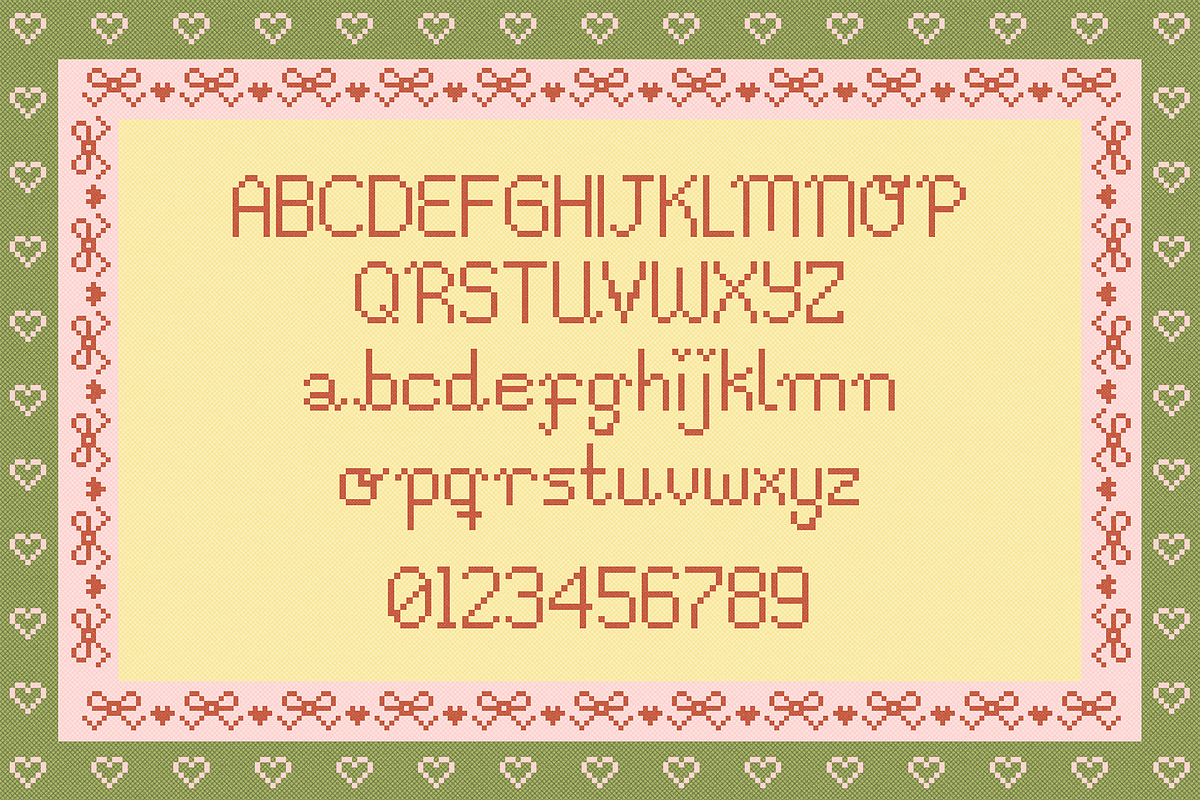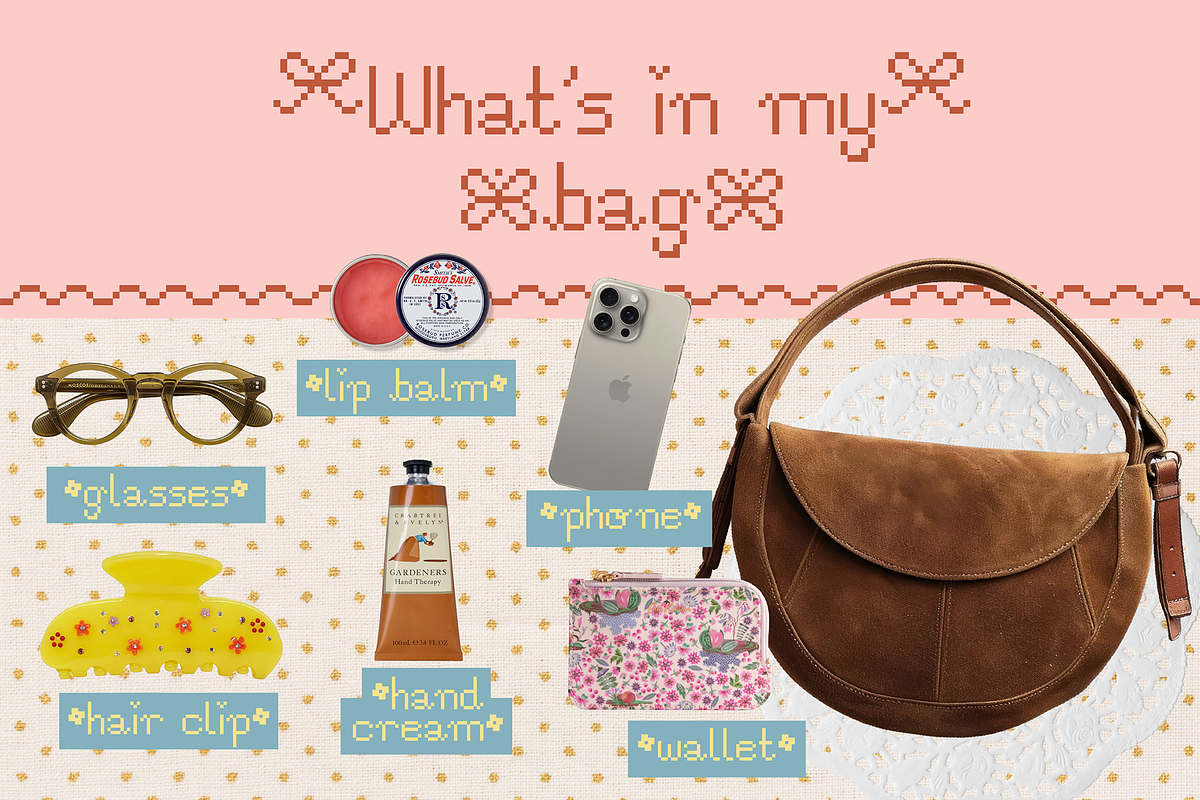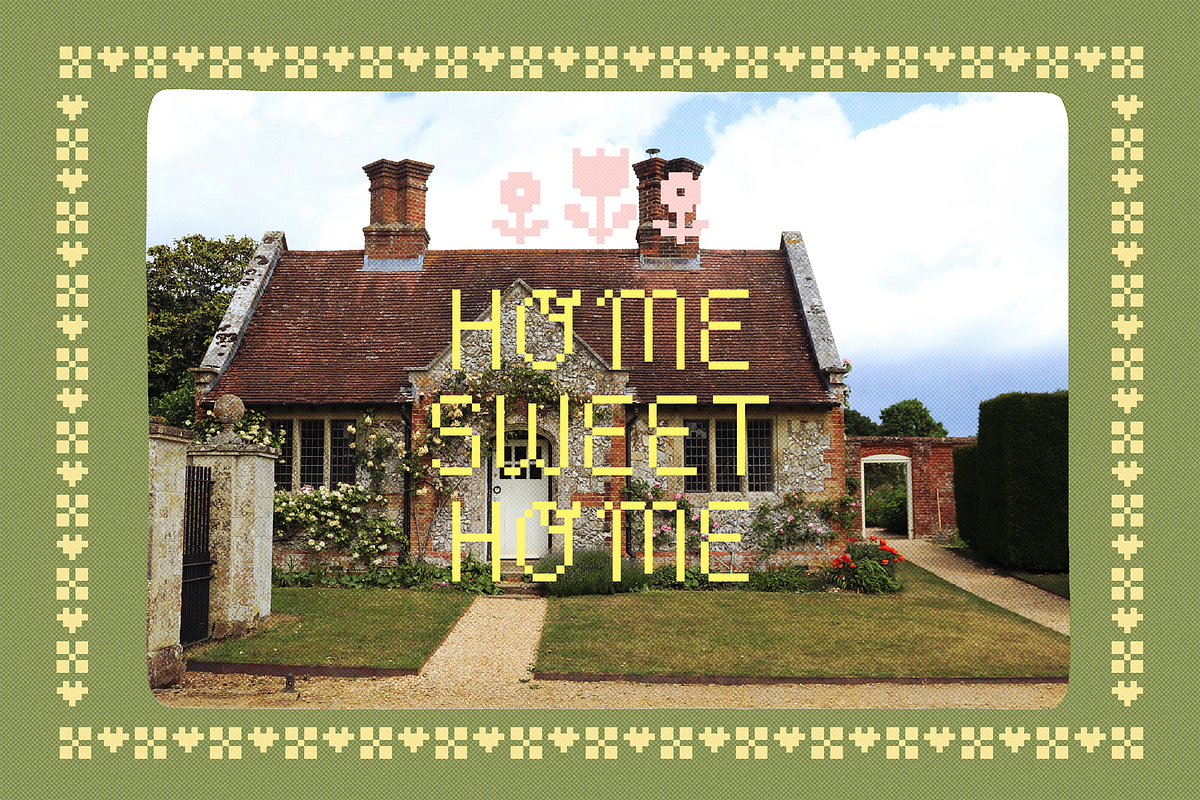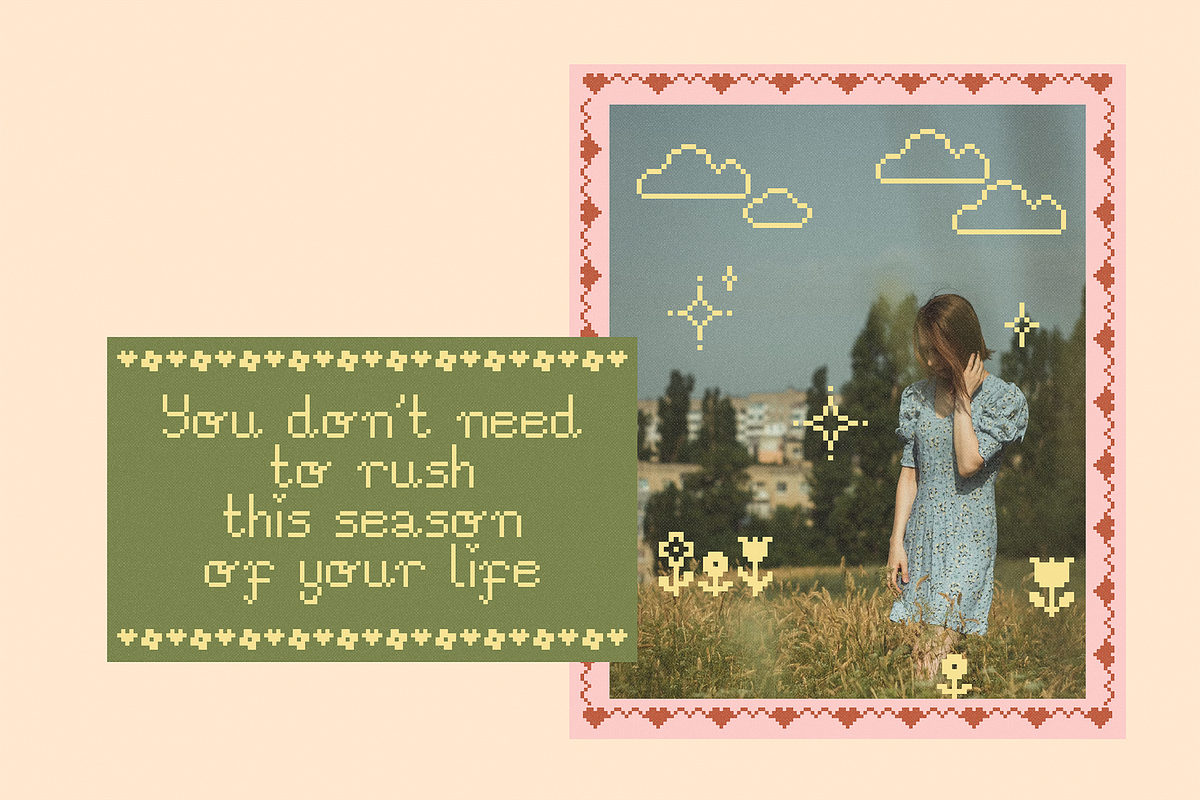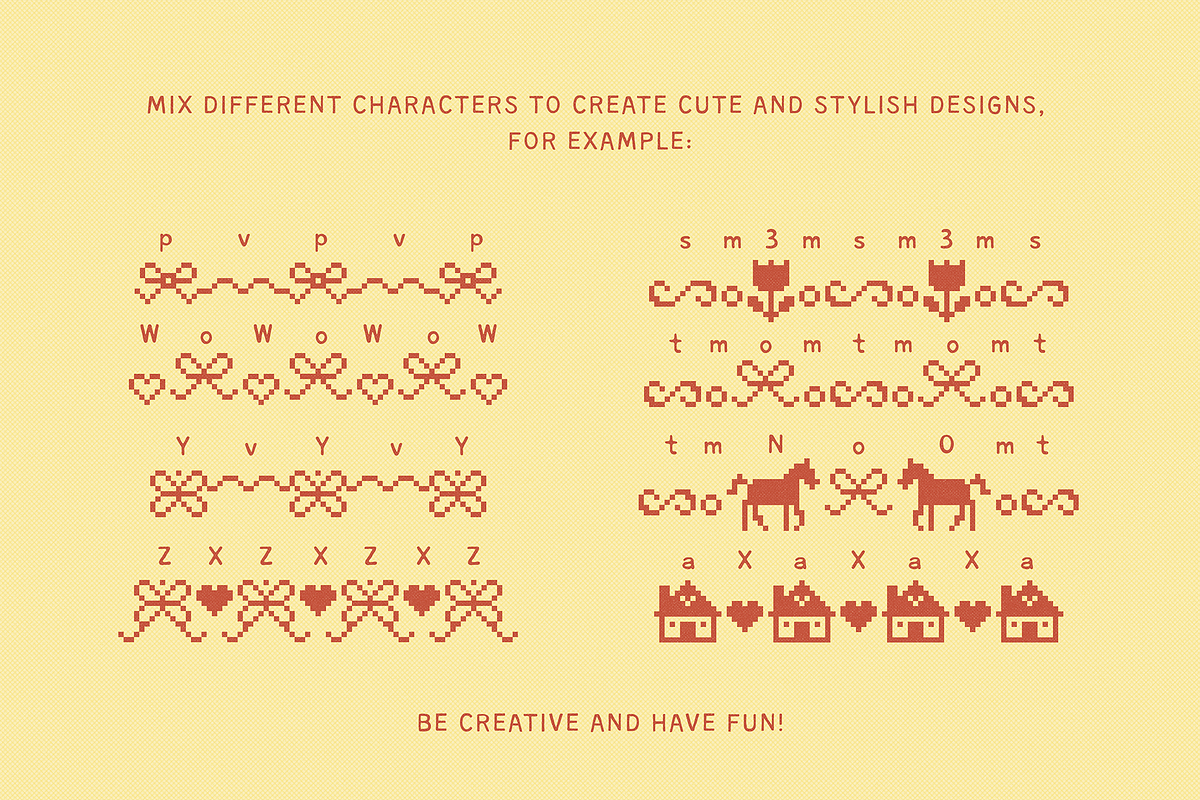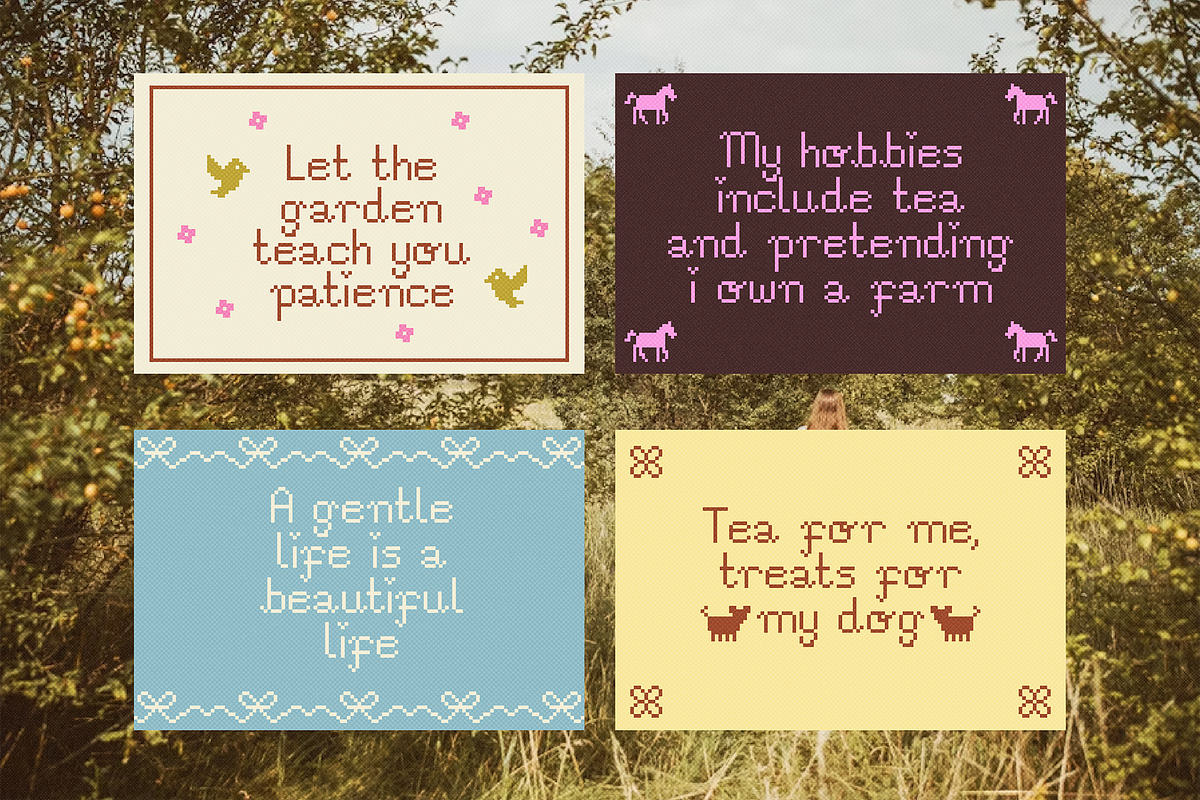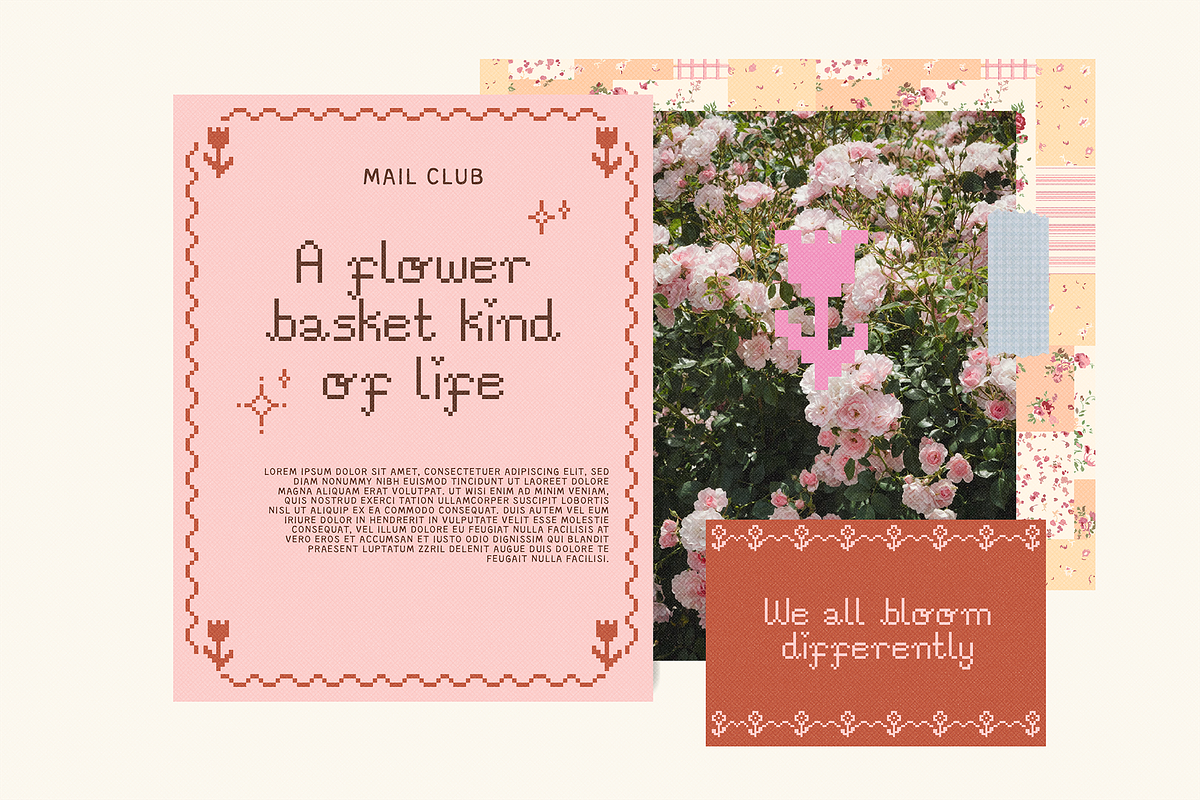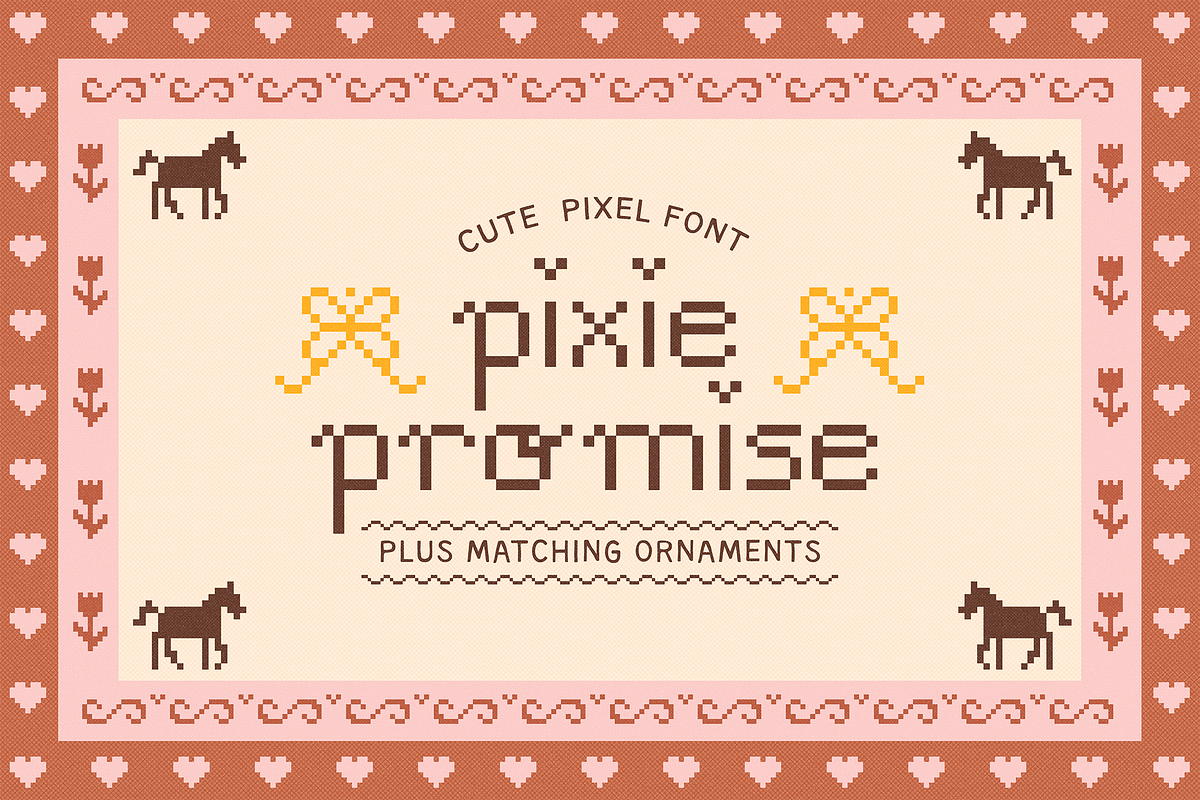
PIXIE PROMISE | CUTE PIXEL FONT
Pixie Promise is a cute pixel font that brings together nostalgic digital vibes and a soft, cozy aesthetic. Although inspired by classic pixel typography, Pixie Promise has a sweet and cozy feel that pairs beautifully with cottagecore, girly, scrapbook, Y2K, and aesthetic projects.
What makes this font even more special is the included Pixie Promise Ornaments font, filled with adorable decorative elements that help you create fun, whimsical, and one of a kind designs.
Pro-tip
✷ Mix and match the ornaments with your text to build compositions full of personality.